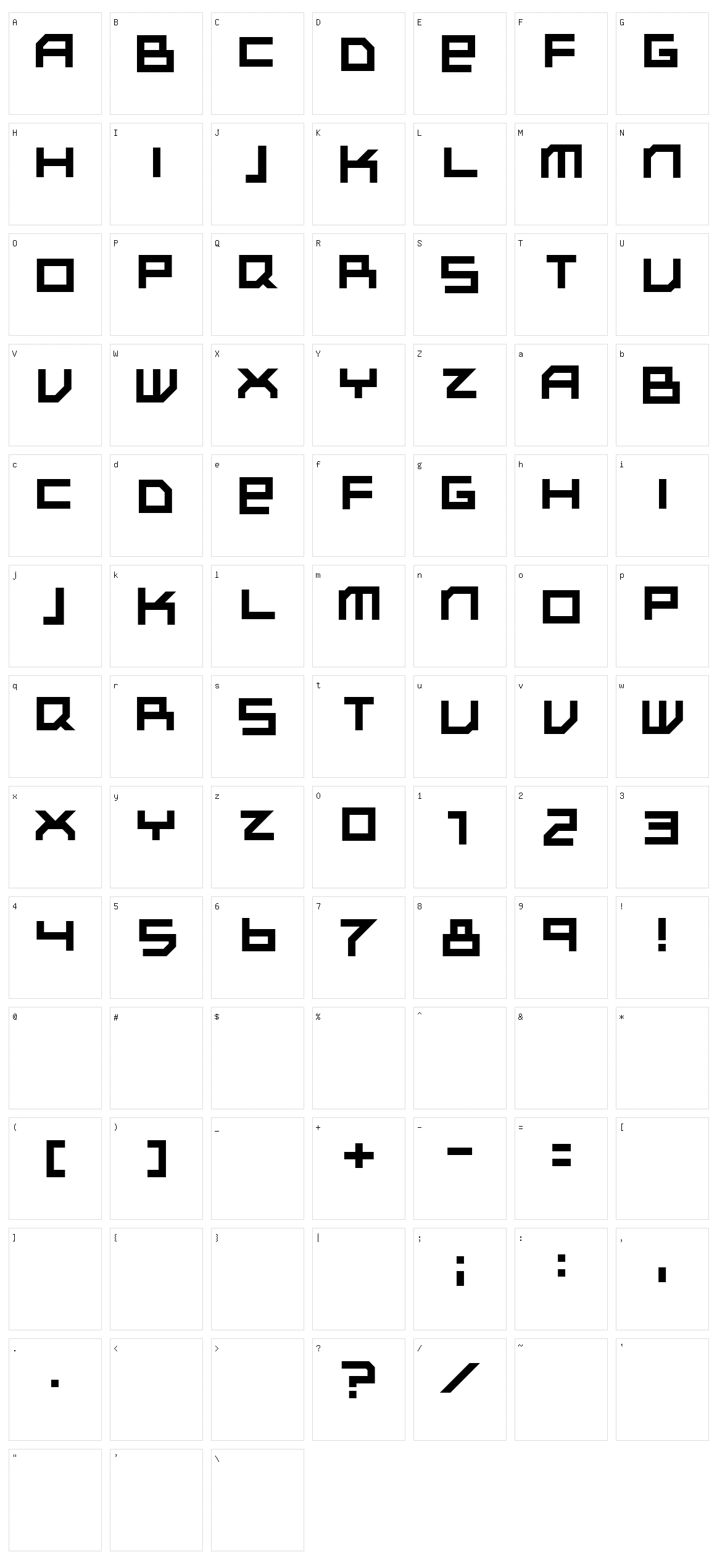
The free font Subotnik is carefully designed by Michael Bulgrin, showcasing a thoughtful balance of creativity and usability and falls under the Square font style. When you download the ZIP file, it contains only 8.24 KB of font files, making it lightweight and quick to download. Please review the license details below to understand permitted usage and distribution rights. If license information is not available, we recommend using this font for personal projects only or contacting the author directly for commercial usage permissions.